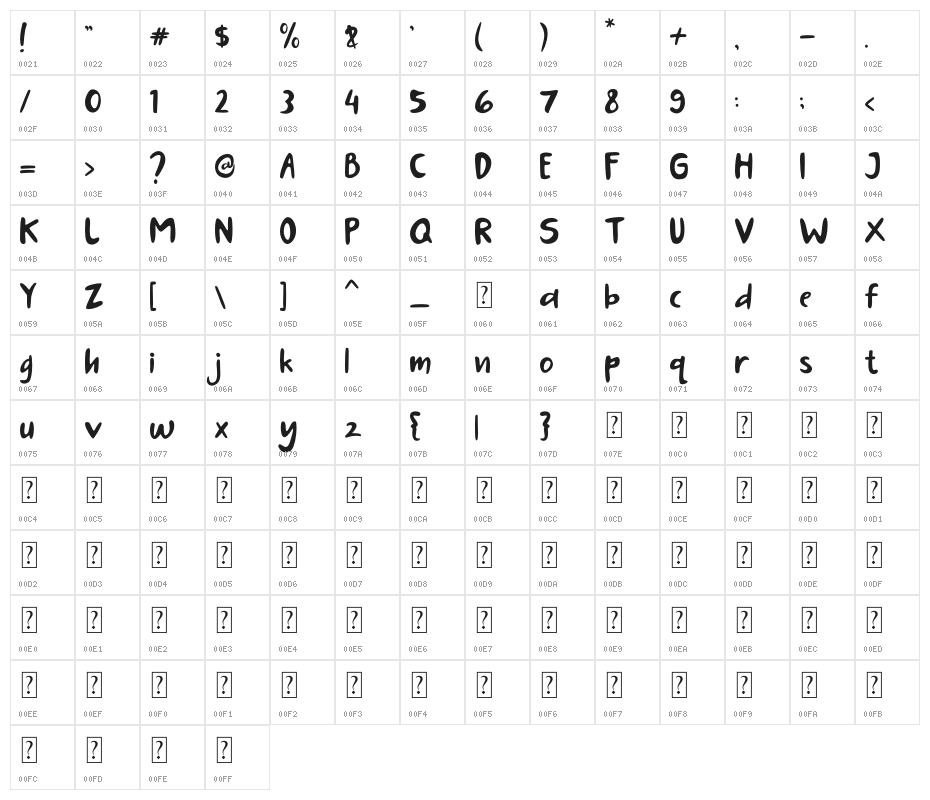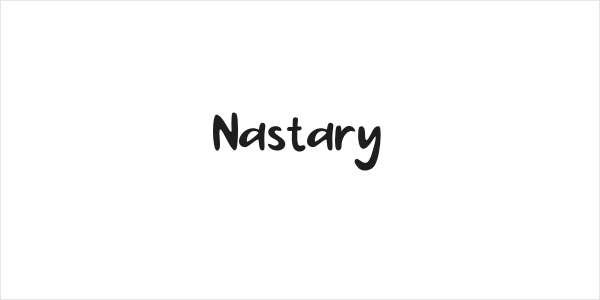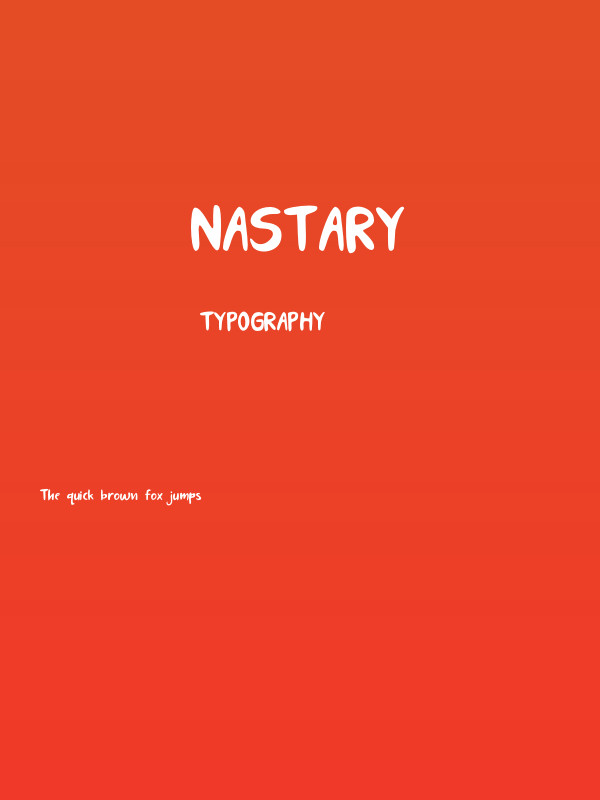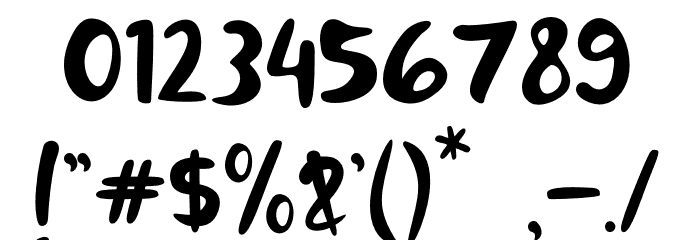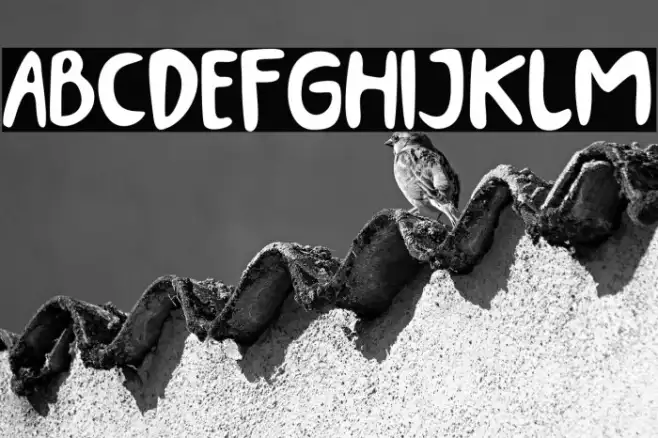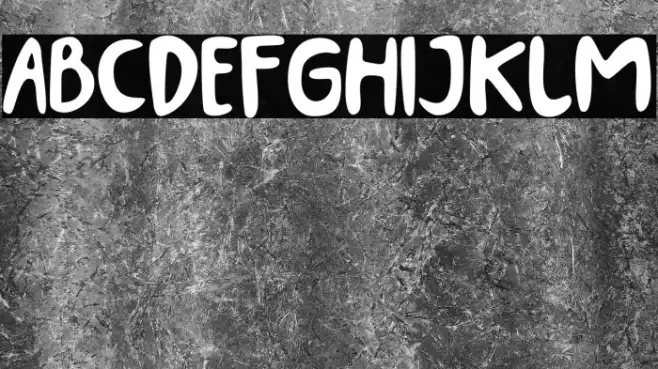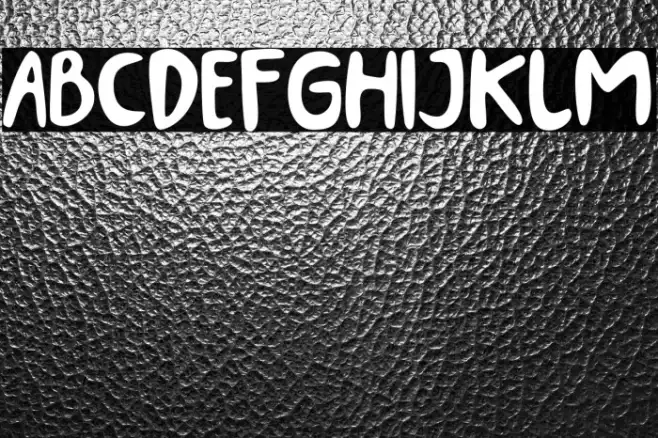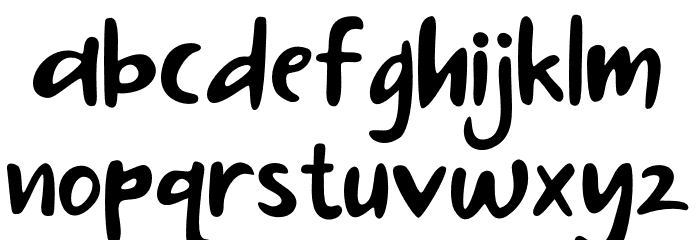
Nastary Font
Nastary Description
This font features a playful and bold handwritten style, characterized by its smooth curves and rounded edges. The uppercase letters are slightly taller than the lowercase, maintaining a consistent width that gives it a balanced appearance. The numbers are equally bold, with a whimsical touch that complements the overall style. Special characters are designed with the same playful aesthetic, making them stand out while remaining cohesive with the rest of the set. The font's informal and friendly look makes it suitable for creative projects that require a personal touch.
| Proposed Projects | Ideal for children's books, playful branding, greeting cards, and creative social media graphics. |